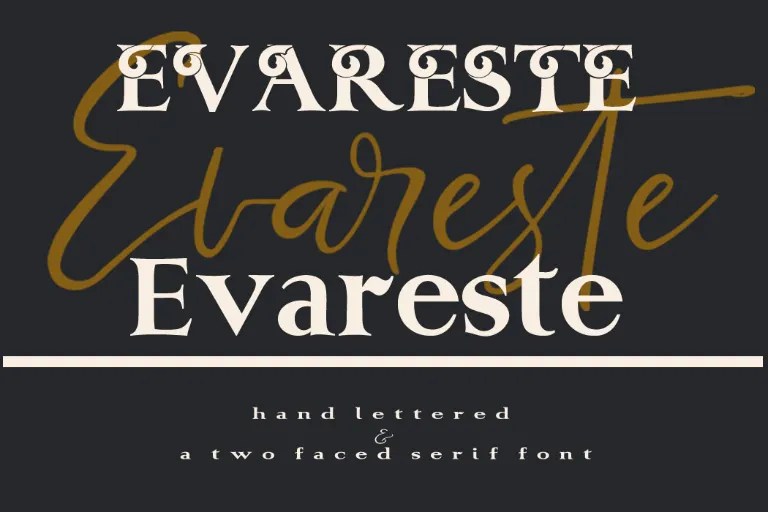
Evareste Duo Font
The reason Evareste Duo Font is genuinely exciting is the effortless sophistication achieved by its dual structure. Typically combining a clean, reliable Sans Serif or Serif style for main body text and a graceful, flowing Script font for focal points, this duo eliminates the difficulty of finding matching typefaces. This synergistic pairing ensures visual harmony, making it simple to create layered, professional typography that is both highly legible and beautifully expressive, providing your project with instant high-quality flair.
The Evareste Duo Font family is defined by its two complementary components: the structured Evareste Display (Serif/Sans) and the fluid Evareste Script. While the display font usually offers functional weights (Regular, Bold), the script is rich in OpenType features like swashes, alternates, and ligatures, maximizing customization. For a beautifully curated and professionally matched typeface solution, secure your Evareste Duo Font Free Download today.